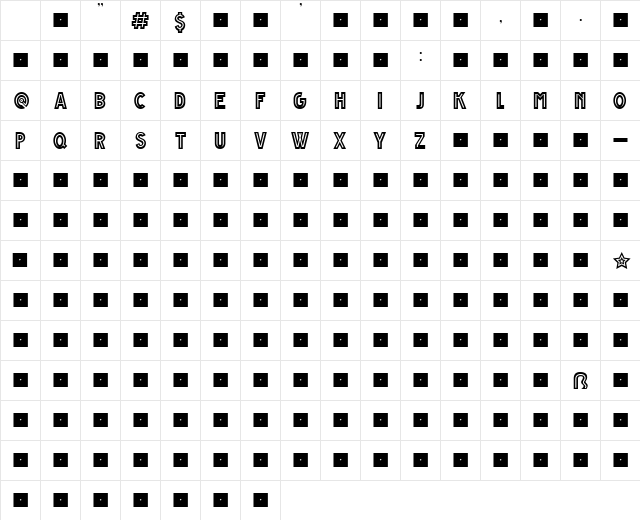
Grande Andretti - limited chars Regular
Foundry: Factorio.us collective
Designer: Ruggero Motta
Design Context for Grande Andretti - limited chars
Grande Andretti - limited chars is a composed and adaptable typeface that performs quietly and consistently across a wide range of design contexts.